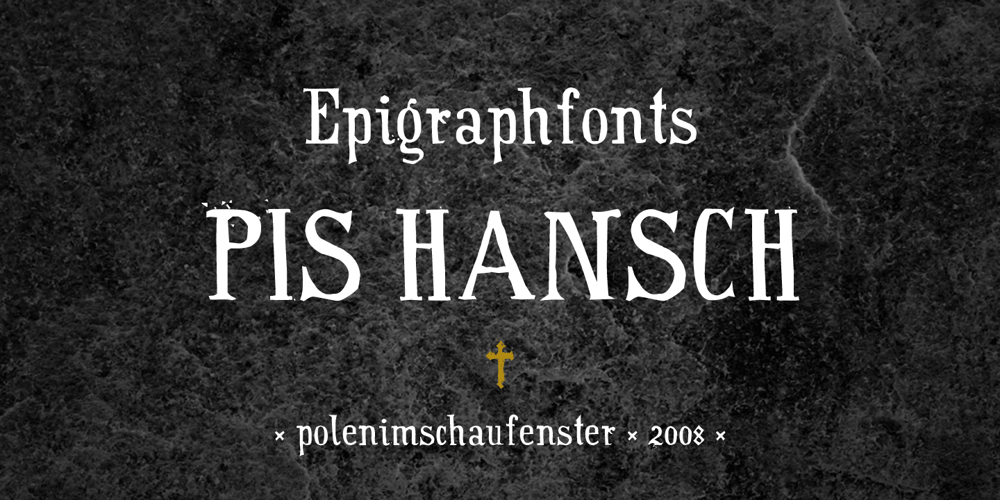
PiS Hansch Font Family was designed by Hannes Siengalewicz and published by PiS. PiS Hansch contains 1 styles and family package options. PiS Hansch has its origin on a small graveyard in Salzburg, Austria. The hand-carved epigraph on a weathered tombstone inspired PiS to create this slightly twisted serif monster. It contains OpenType Features including contextual alternates (you get three different versions of ‘s’, two different versions of ‘t’ and much more), some ligatures and a very special Long S substitution feature that throws you over a hundred years back in time by changing your everyday small “s” into the classic “long s”. Use PiS Hansch for your new Metalcore band logo, a zombie flick poster or some hack’n slay computer game titles. works both in display size and for texts in smaller sizes.